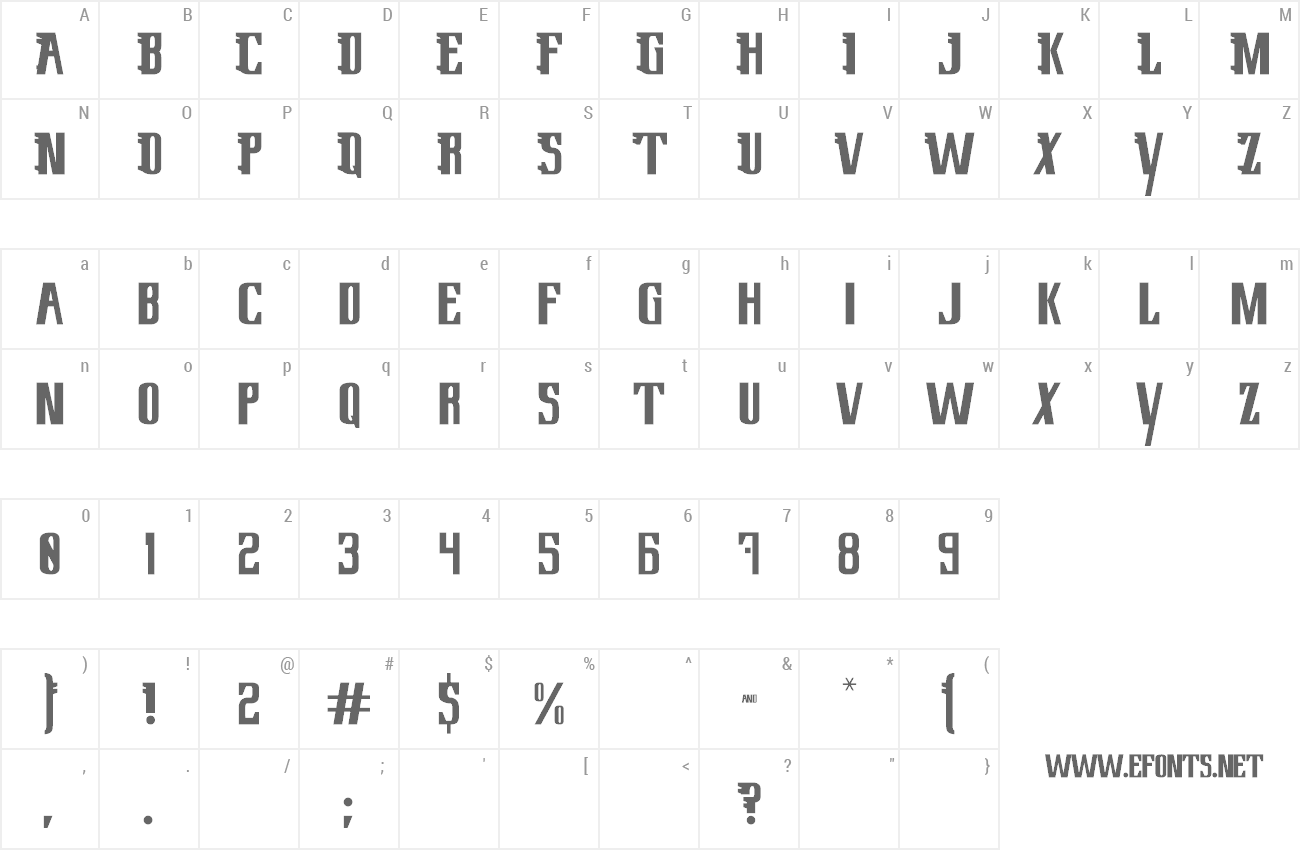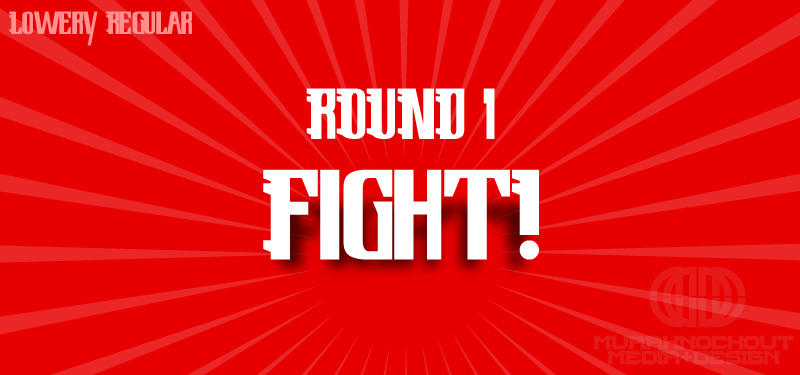
Preview and download Lowery Font. Created by MuraKnockout Media + Design in Fancy Various styles with 100% Free license.
Check out my new Font Blog to stay up to see when I release new fonts! http://murafonts.blogspot.com/ ----------------------- A font equally inspired by my friends obsession with video games and my love of fighting games growing up. It was made with video games in mind, but I think it works well for various genres from Fantasy to Fighting to Hack n' Slash. This is free to do with whatever you wish, personal or commercial. Just don't claim ownership, sell it, redistribute it, or be a jerk with it. It might be cool if you use the font to either credit MuraKnockout Media or Michael Muranaka, or show me how you used it! Enjoy! |